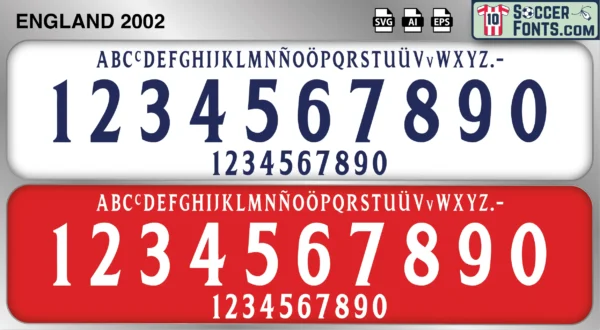
England 2002 Font
The England 2002 font is an editable soccer jersey lettering design in vector format inspired by the England kit style used during the 2002 football season. This football font artwork is prepared for football shirt recreations, custom jersey projects, football kit mockups and sports graphic design workflows.
The 2002 season is closely associated with England’s campaign at the 2002 FIFA World Cup in South Korea and Japan, one of the most memorable tournaments of the early 2000s. Under Sven-Göran Eriksson, England arrived with a talented squad featuring David Beckham, Michael Owen, Paul Scholes, Rio Ferdinand, Sol Campbell and Ashley Cole. The tournament included one of England’s most famous victories, a 1-0 win over Argentina in the group stage secured by Beckham’s penalty. Michael Owen remained one of the world’s most exciting forwards, while a new generation of players continued establishing itself on the international stage.
The England 2002 font became associated with a World Cup campaign that captured the attention of supporters across the country. England shirts from this era remain highly collectible because of their connection with Beckham’s leadership, Owen’s attacking brilliance and one of the most recognizable England squads of the modern era. The England 2002 font reflects a period when expectations were high and English football enjoyed growing international prominence through both the national team and the rapidly expanding influence of the Premier League.